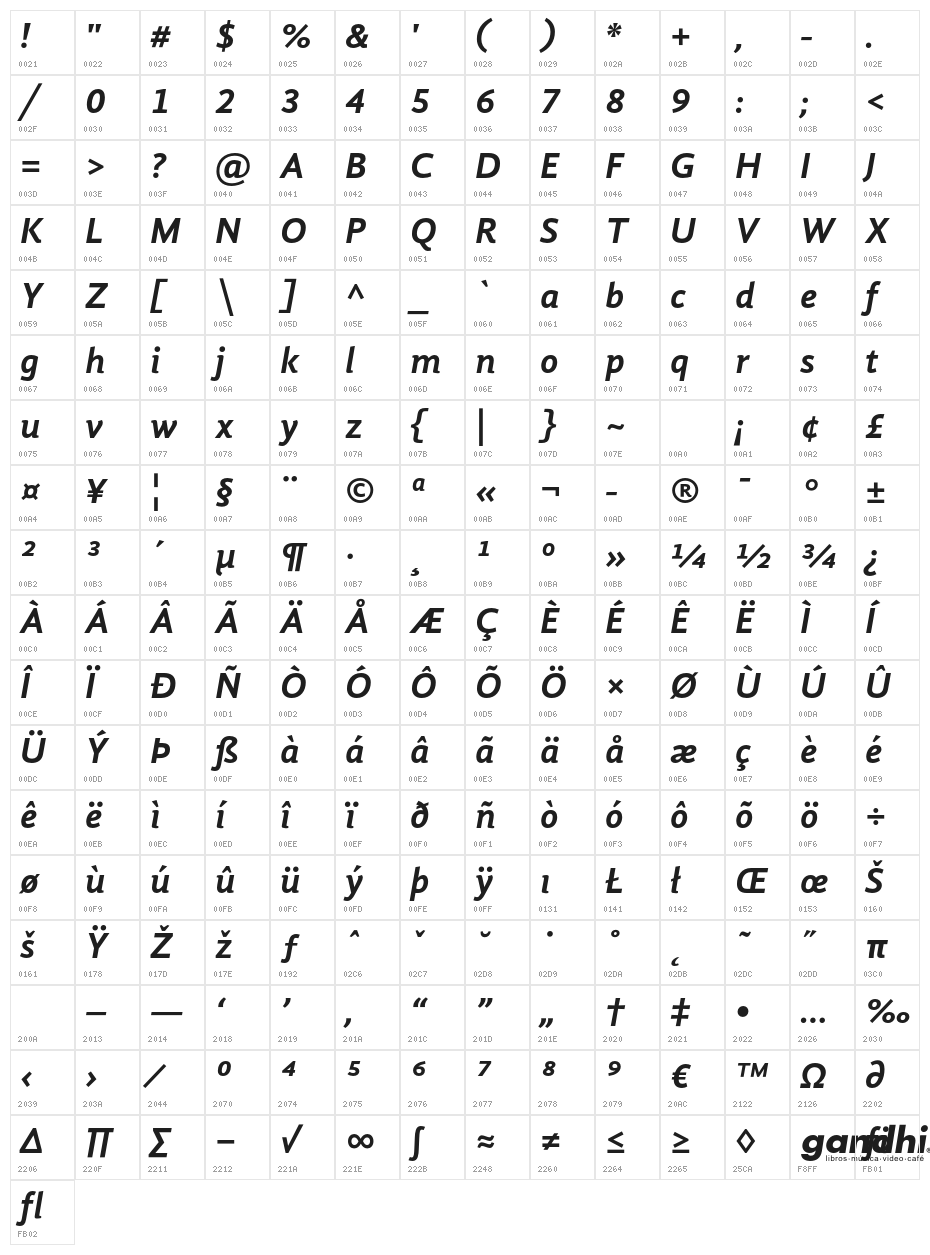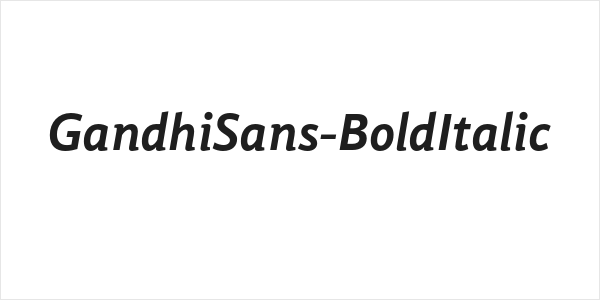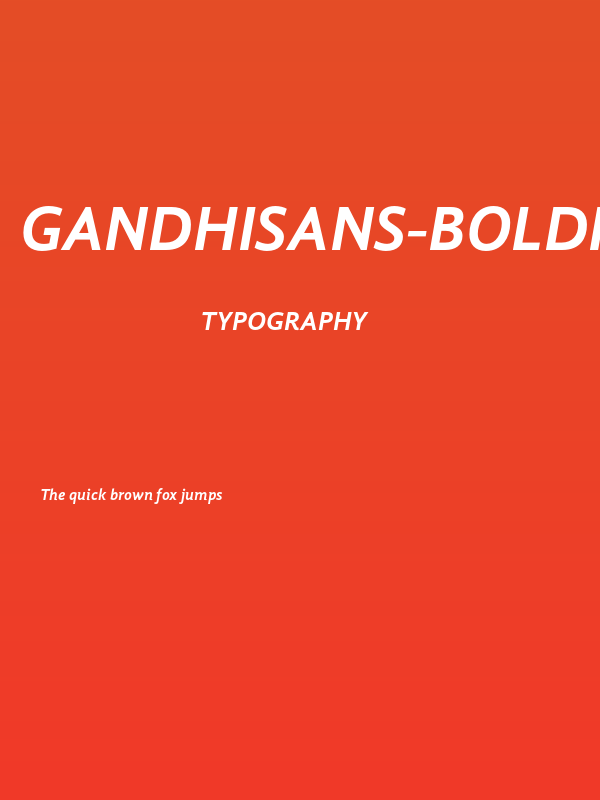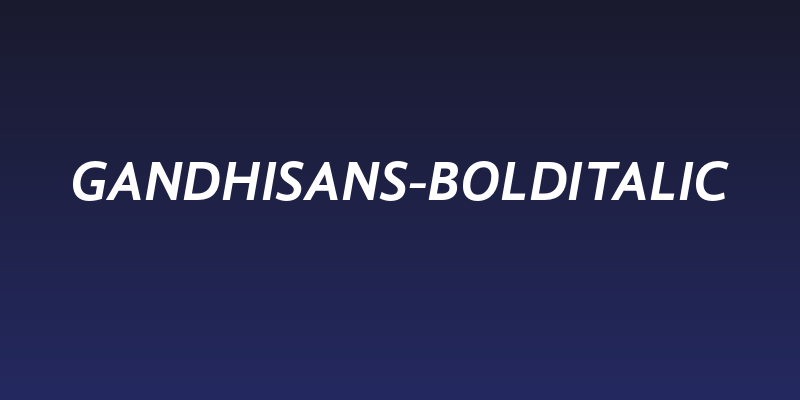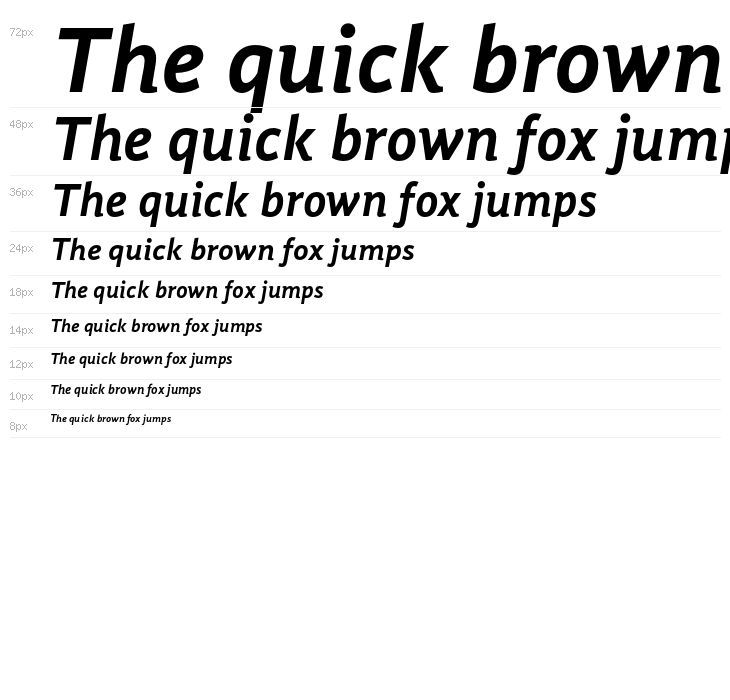
GandhiSans-BoldItalic Font
GandhiSans-BoldItalic Description
This font exhibits a modern sans-serif style with a bold and italicized appearance. The characters are slightly slanted, giving it a dynamic and forward-moving feel. The strokes are consistent in thickness, providing a uniform look across all characters. The uppercase letters are well-proportioned, while the lowercase letters maintain a smooth, rounded form. Numbers are clear and distinct, ensuring readability. Special characters are designed to match the overall aesthetic, making them suitable for various applications. The font's clean lines and contemporary style make it versatile for both digital and print media.
| Use Case | Headlines, Logos, Digital content |
| Proposed Projects | Ideal for branding, advertising, headlines, and digital content that requires a modern and dynamic look. |